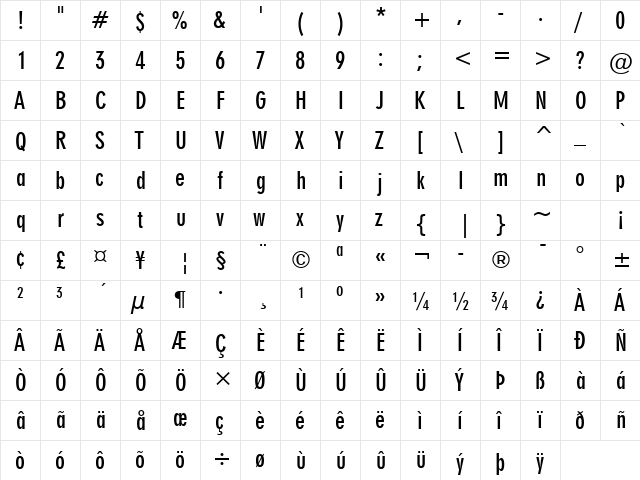
Geometr706 BdCn BT Bold Font Preview
Geometr706 BdCn BT Bold
Design Context for Geometr706 BdCn BT Typeface
Geometr706 BdCn BT takes a measured approach to typography — its balanced proportions and neutral character make it a reliable workhorse for both digital and print work. Its bold stroke weight gives it real presence on the page.